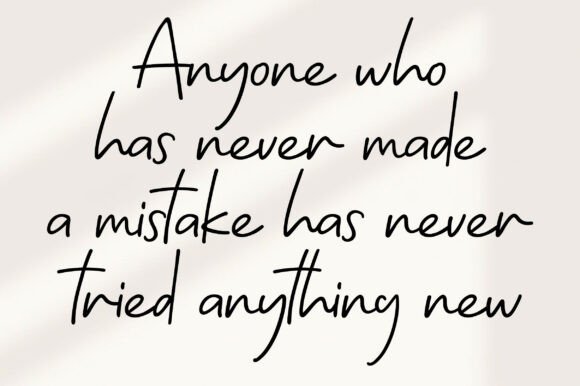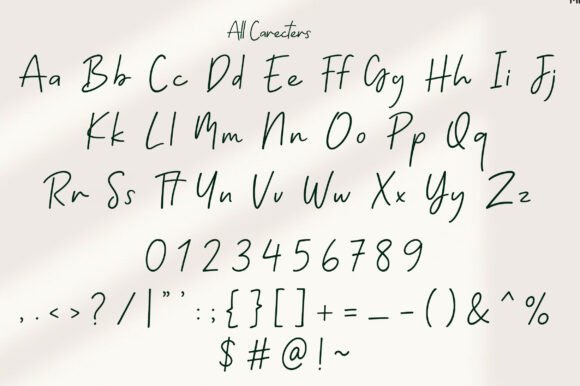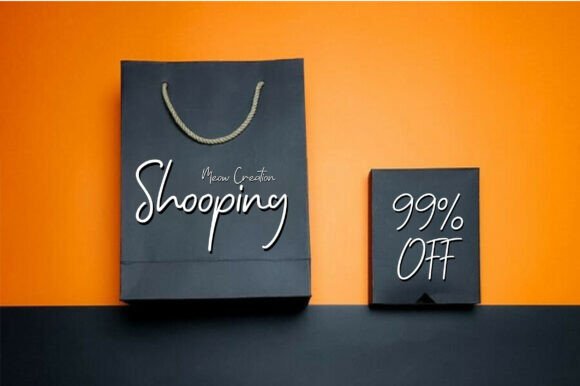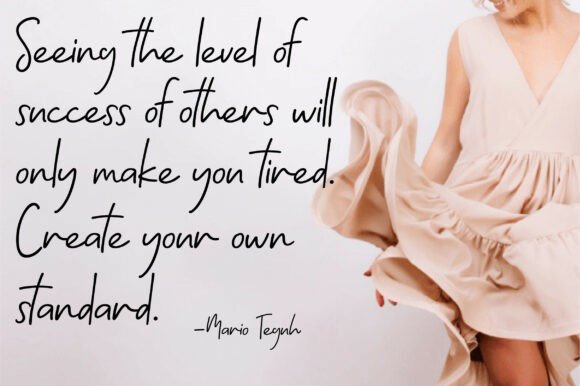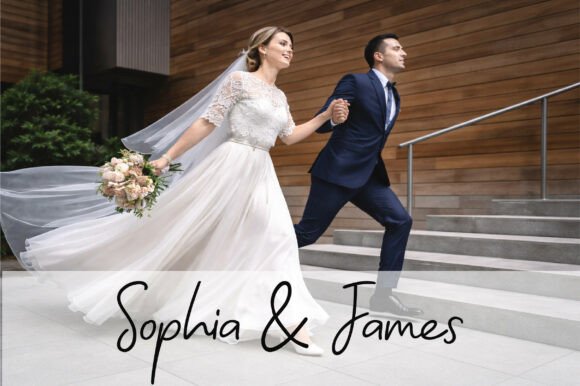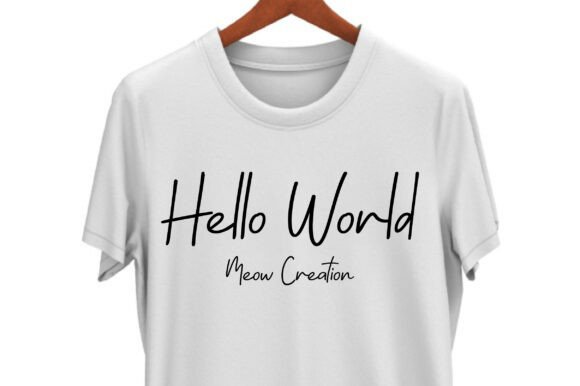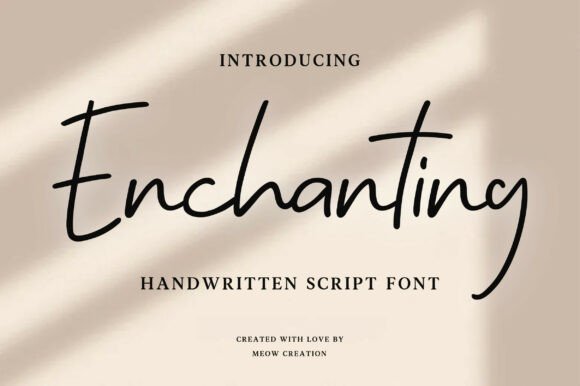
Discover the Enchanting Script Font: Elevate Your Designs with Elegance and Sophistication
In the world of typography, few fonts manage to capture the essence of elegance and sophistication as effortlessly as the Enchanting Script Font. This beautiful, handwritten font is designed to bring a touch of natural elegance to any creative project, making it a perfect choice for designers and crafters looking to add a personal and refined touch to their work.
The Characteristics of Enchanting Script
Enchanting Script is a smooth and elegant handwritten font that boasts a natural, flowing style. Its balanced curves and soft strokes create a modern yet timeless look, making it incredibly versatile for a wide range of applications. Whether you’re working on photography branding, logos, invitations, social media content, or stylish quotes, Enchanting Script is the perfect choice to add a dash of sophistication and warmth to your designs.
What Makes Enchanting Script Stand Out?
- Smooth and Elegant Lines: The font features smooth, flowing lines that give it a natural and effortless look, making it perfect for designs that require a touch of elegance.
- Balanced Curves: The balanced curves of Enchanting Script create a harmonious and visually appealing effect, making it ideal for logos, branding, and other design elements.
- Soft Strokes: The soft strokes of the font add a touch of warmth and sophistication, making it perfect for designs that require a personal and refined touch.
- Modern yet Timeless: Enchanting Script’s unique blend of modern and timeless elements makes it a versatile font that can be used in a wide range of design applications.
Enchanting Script is designed to be a go-to font for designers and crafters who want to add a touch of elegance and sophistication to their work. Whether you’re working on a photography project, creating a logo for a new brand, or designing invitations for a special occasion, Enchanting Script is the perfect choice.
Applications of Enchanting Script
- Photography Branding: Use Enchanting Script to add a touch of elegance and sophistication to your photography branding, including logos, business cards, and website headers.
- Logos: Create stunning logos for your clients or your own business with Enchanting Script, which adds a touch of warmth and refinement to any design.
- Invitations: Design beautiful invitations for weddings, parties, and other special occasions with Enchanting Script, which adds a touch of elegance and sophistication.
- Social Media: Use Enchanting Script to create stunning social media graphics, including quotes, promotions, and other engaging content.
- Stylish Quotes: Add a touch of elegance and sophistication to your stylish quotes with Enchanting Script, which is perfect for designs that require a personal and refined touch.
Why Choose Enchanting Script?
Enchanting Script is more than just a font – it’s a design solution that can elevate your creative projects to new heights. With its smooth and elegant lines, balanced curves, and soft strokes, Enchanting Script adds a touch of warmth and sophistication to any design. Whether you’re a designer or crafter, Enchanting Script is the perfect choice for anyone looking to add a personal and refined touch to their work.
| Font Name | Enchanting Script Font |
| Author | Meow Creation |
In conclusion, Enchanting Script is a beautiful and elegant handwritten font that is perfect for designers and crafters looking to add a touch of sophistication and warmth to their creative projects. With its smooth and elegant lines, balanced curves, and soft strokes, Enchanting Script is a versatile font that can be used in a wide range of design applications. Whether you’re working on photography branding, logos, invitations, social media content, or stylish quotes, Enchanting Script is the perfect choice to elevate your designs and add a personal and refined touch.